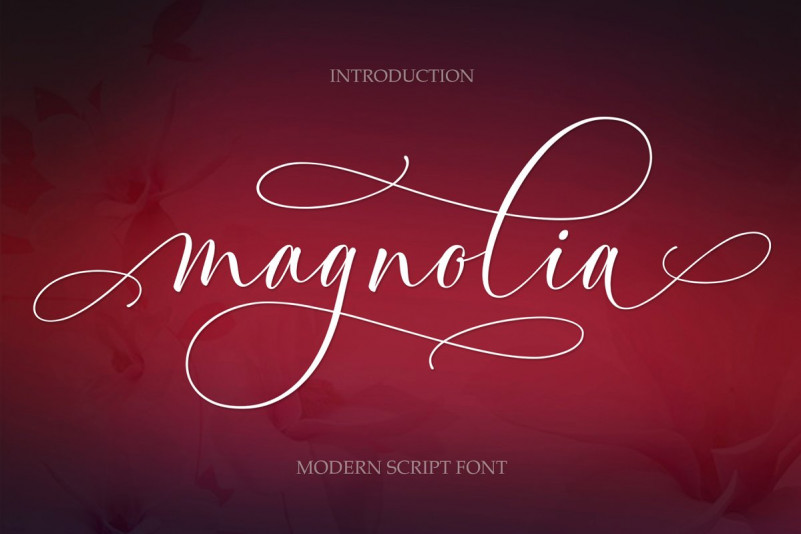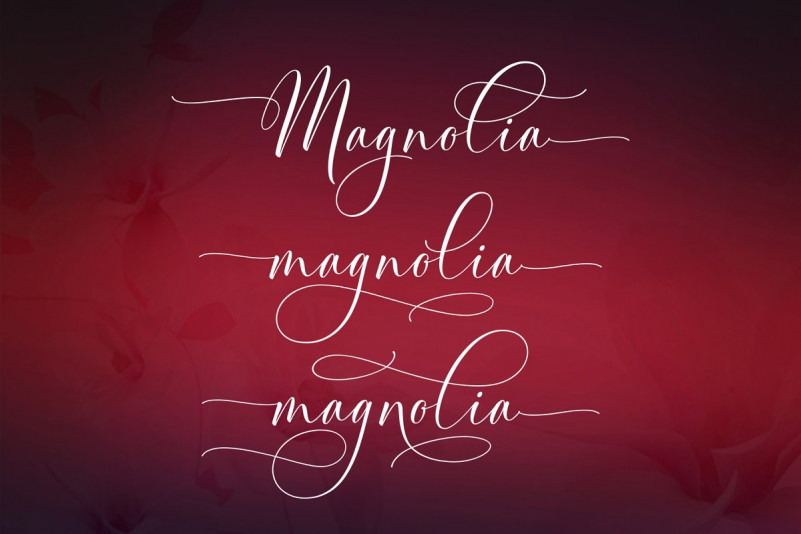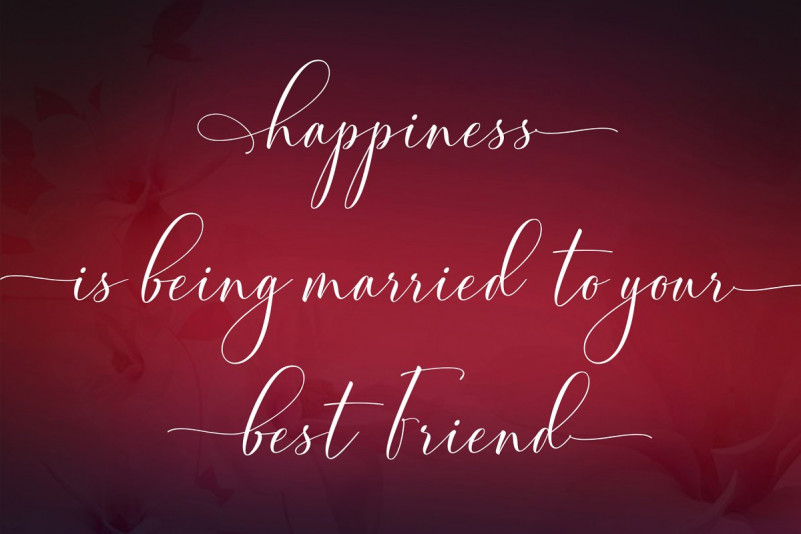
This is perfect for branding, wedding invitations and cards.
Magnolia Modern Script includes a complete set of upper and lower case letters, numbers, various punctuation marks and ligature. All lowercase letters include beginning and ending swash.